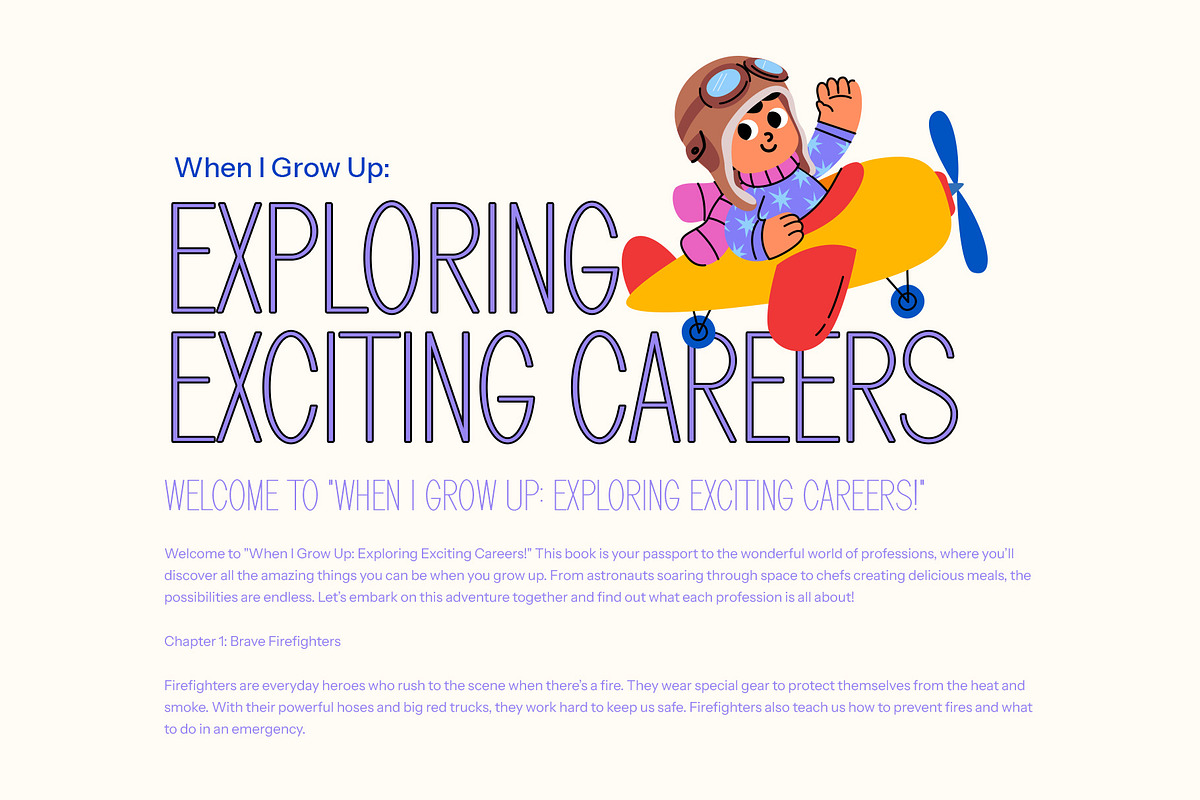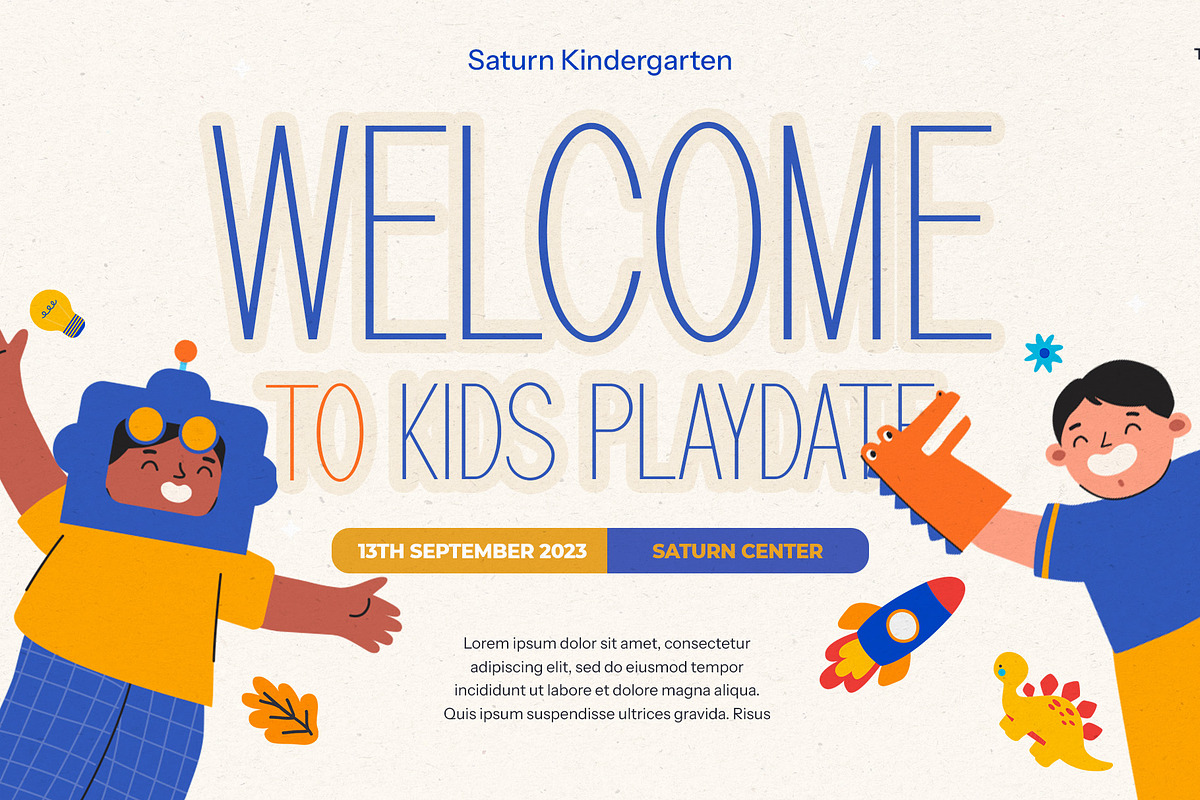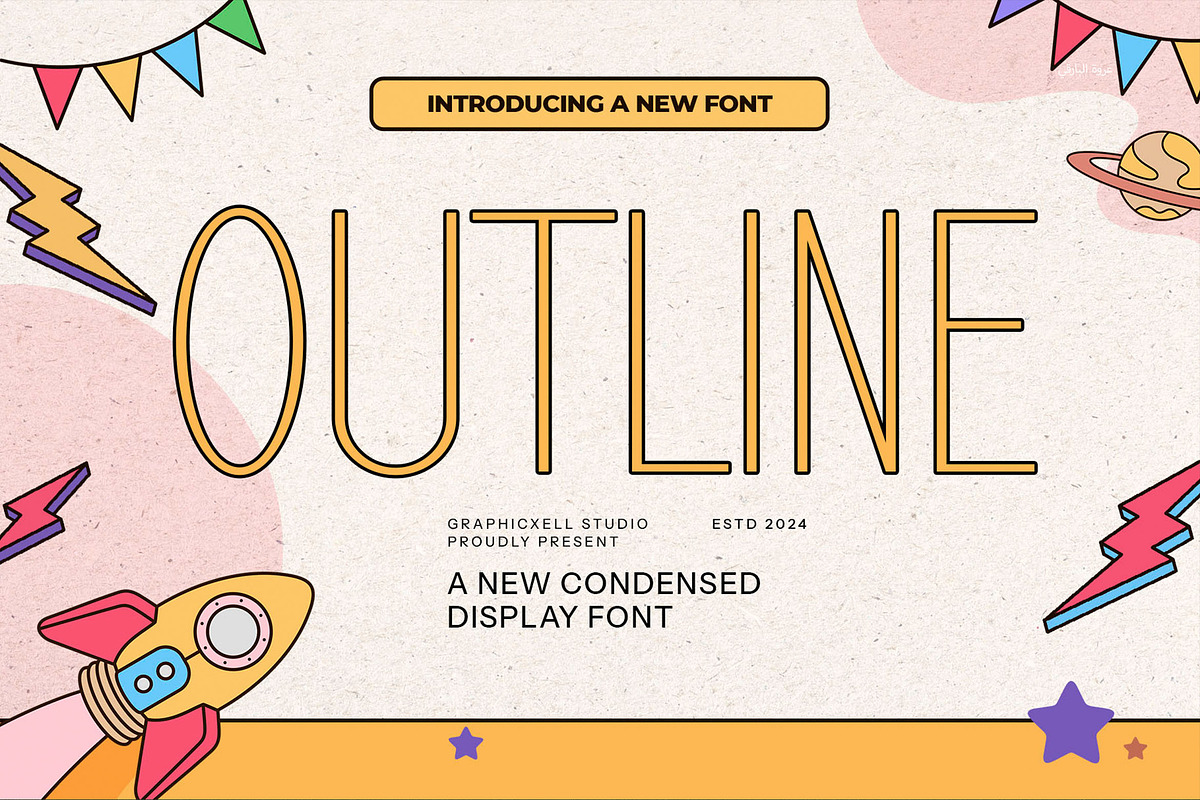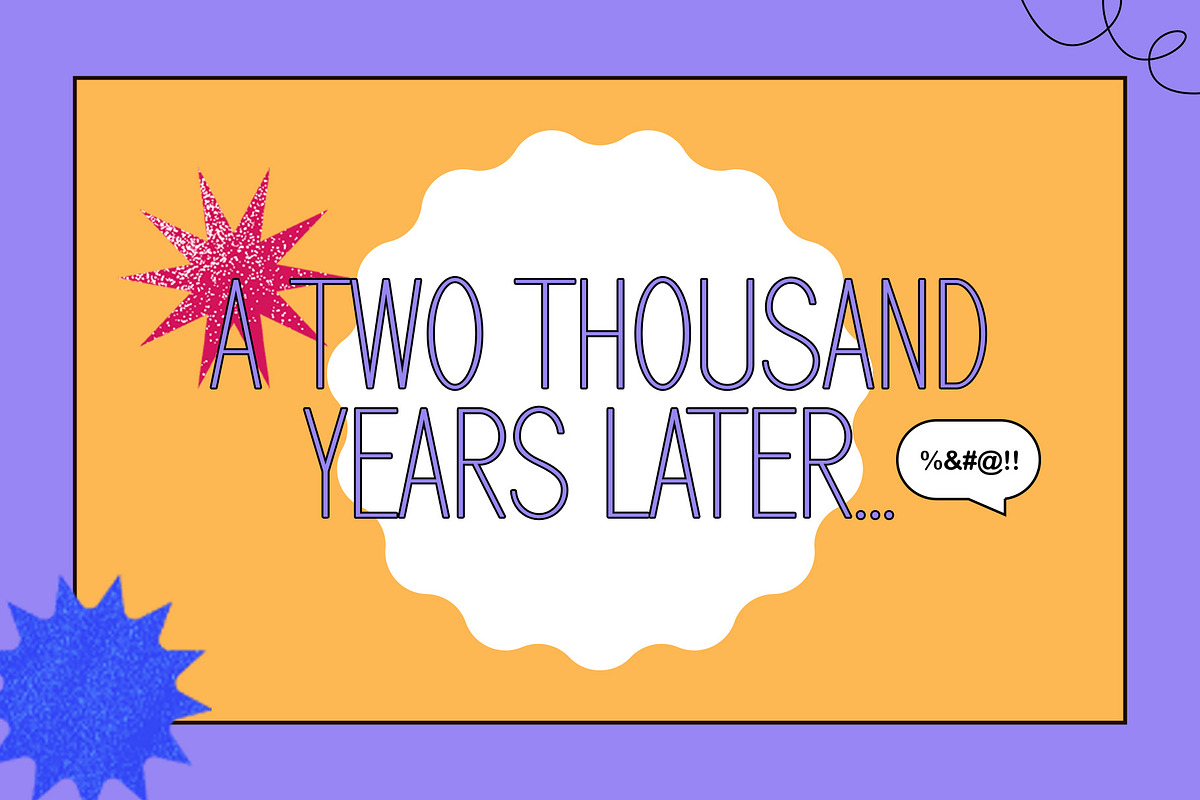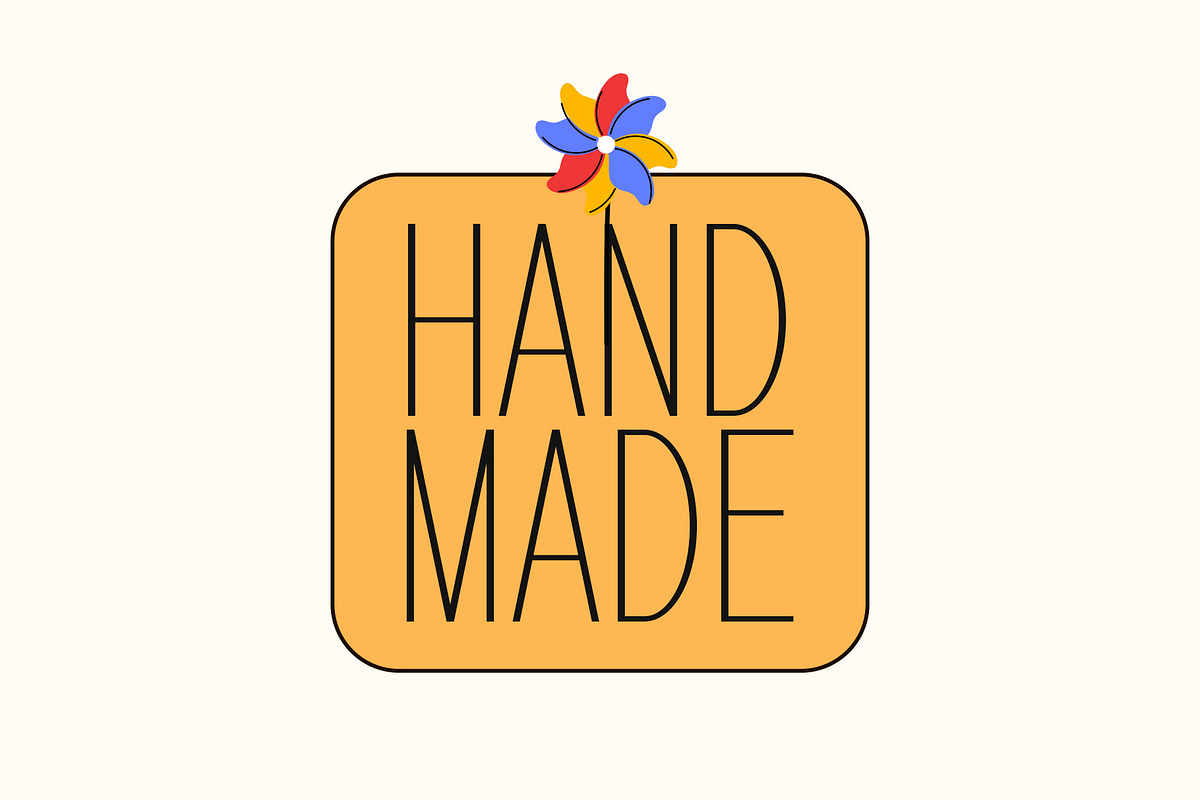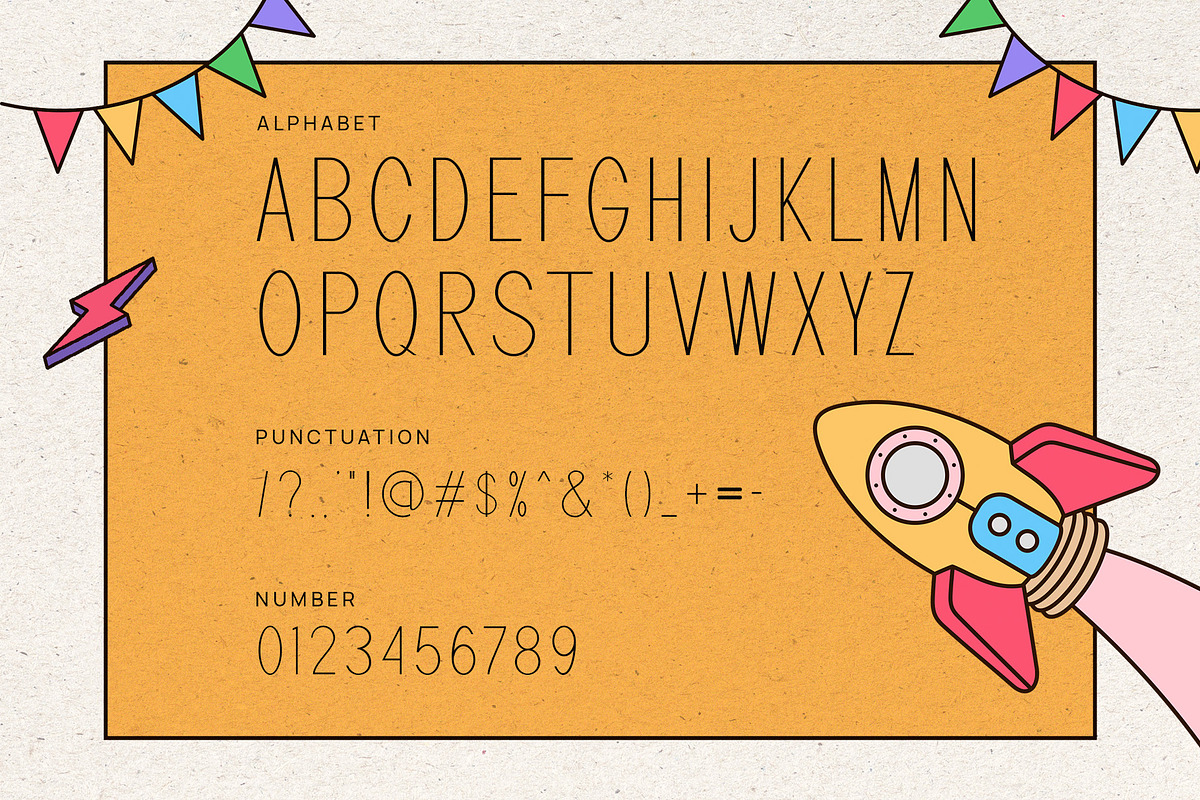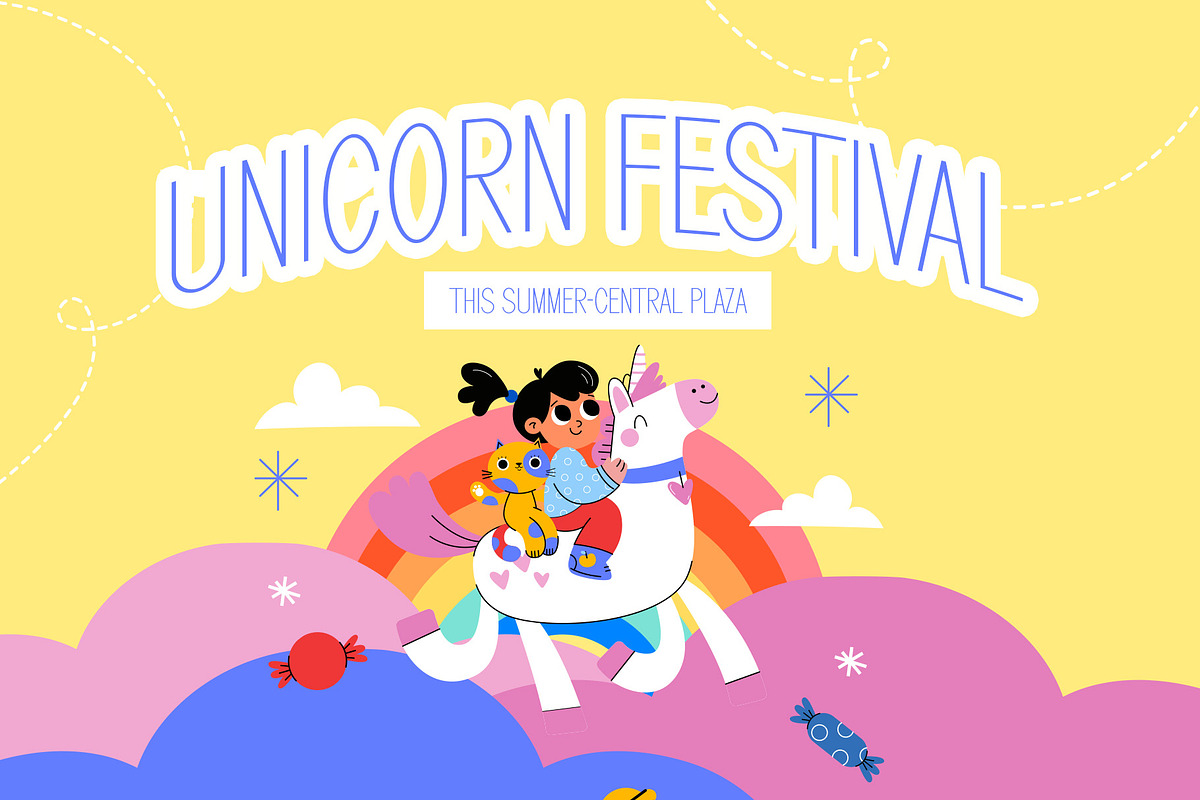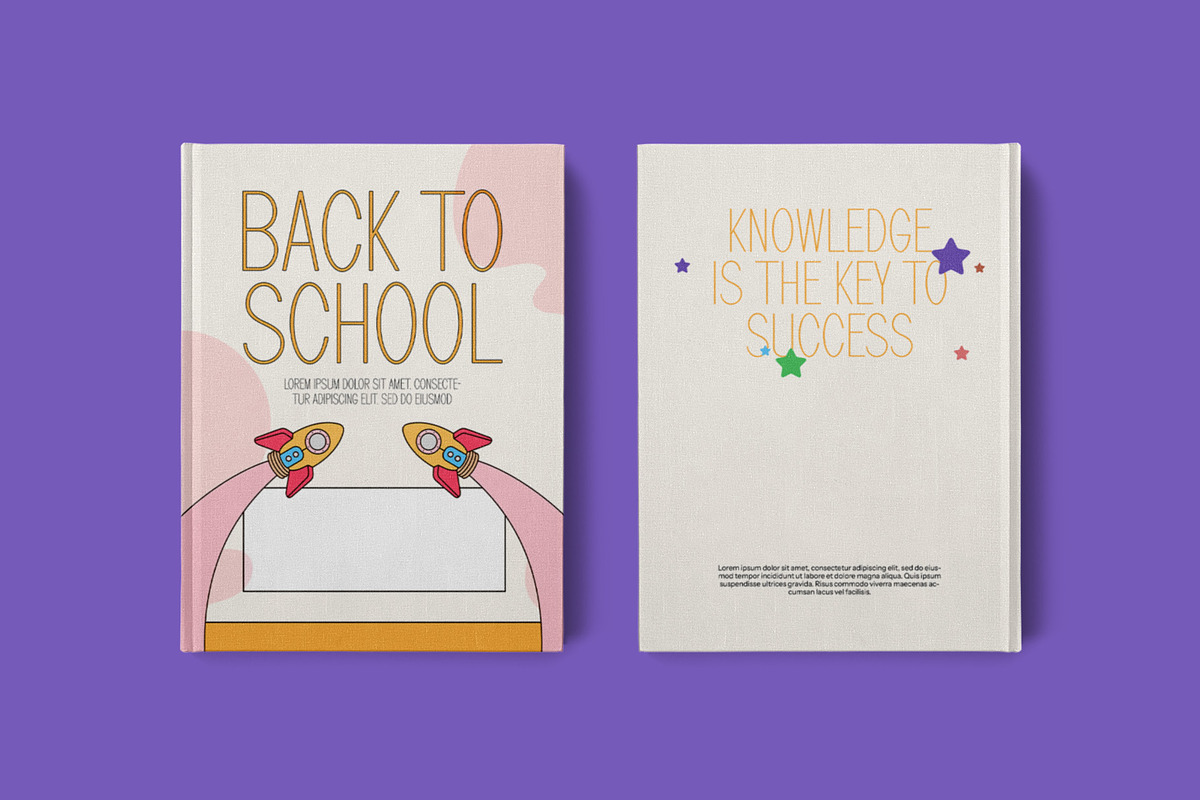
Outline Modern Display Font
Outline Modern and Unique Sans Serif is a rational, warm, and robust sans serif font. Authoritative, clear, and functional, this font still has high character. The strokes are cut horizontally or vertically to minimize inter-letter gaps and lend it an even beauty. With a minimal design, it has a professional look. Even though it is not symmetrical, the letterforms look balanced. Besides that, it combines uniqueness and modernity to impress the audience. This sans serif font also comes with subtle contrast and contours, creating a precise proportion. The shapes give an elegant look without compromising on minimalism. Of course, it ensures that any graphic design project will increase its appeal with this font. By applying it, your post templates, layout designs, or logos will charm everyone. Because of its versatility, just feel free to use this sans serif font for your own purposes. Hope it meets your expectations!Outline
- This sans serif font also comes with subtle contrast and contours, creating a precise proportion.
Why Outline Modern Display Font is worth a look